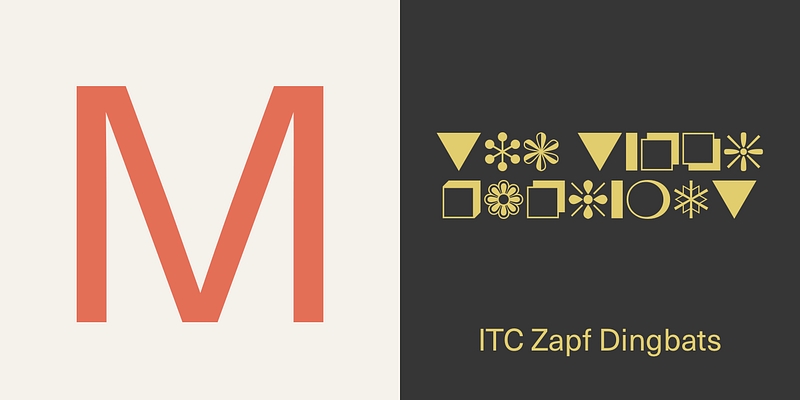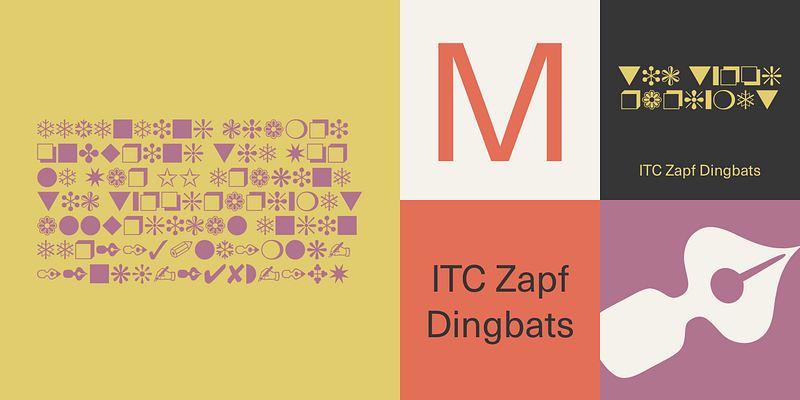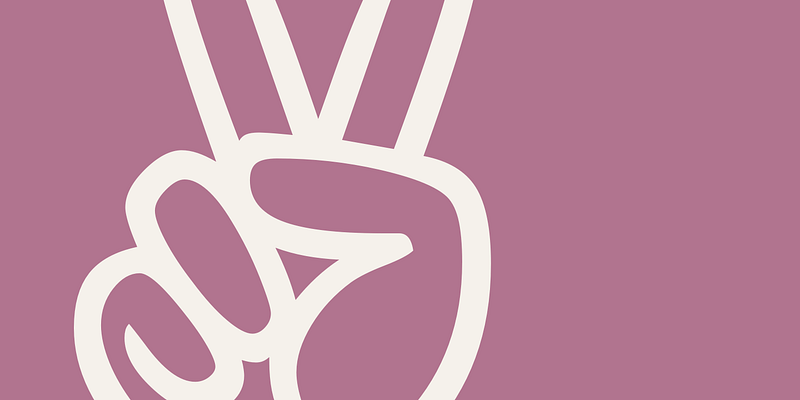
The Zapf Dingbats originally had been a selection of 360 symbols, ornaments and typographic elements from over 1200 designs. (For the first time a lady’s hand is shown for the index symbol, the fist). The exisiting Zapf Dingbats offers a small selection out of this great offer. Therefore Hermann Zapf created new symbols for the set of the Zapf Dingbats, which are available today from Linotype as ‘Zapf Essentials?’ 6 fonts with new and fresh symbols like fax, cell phone and internet symbols.